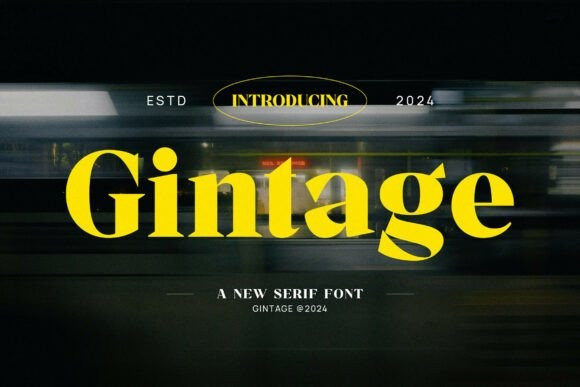
Gintage Font
Designer: RK
Gintage Font is a lovely and timeless serif font. It is the best choice for creating eye catching logos, branding and quotes. Every letter has a unique and beautiful touch, which will make your design come alive!